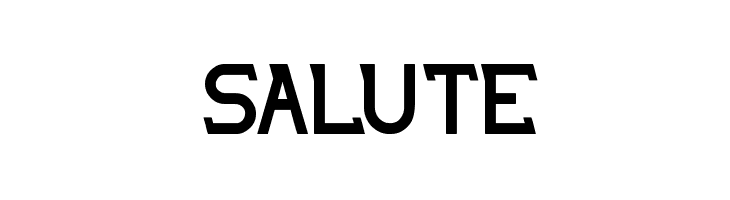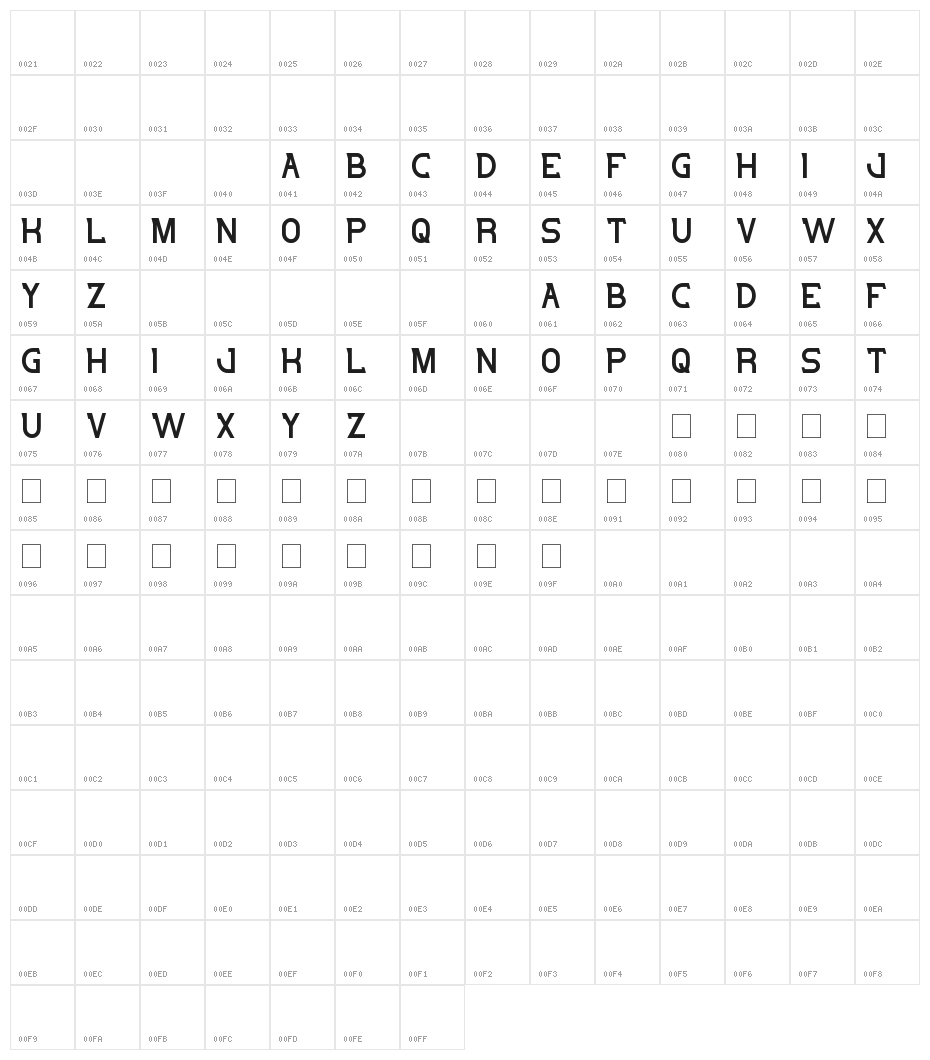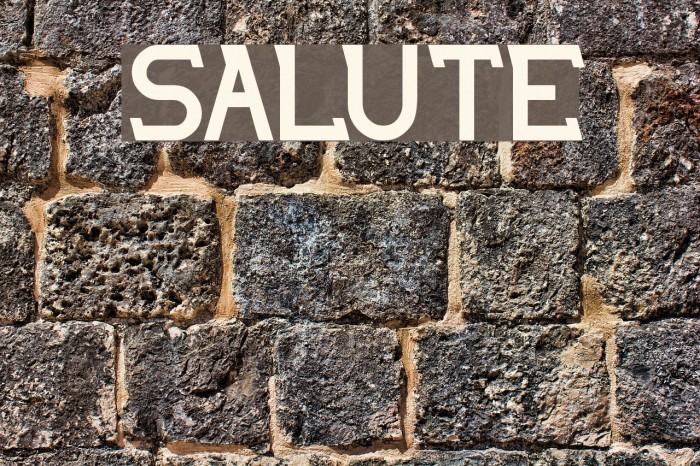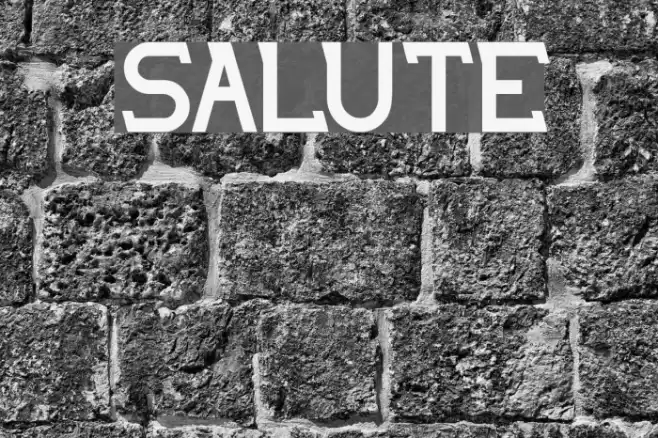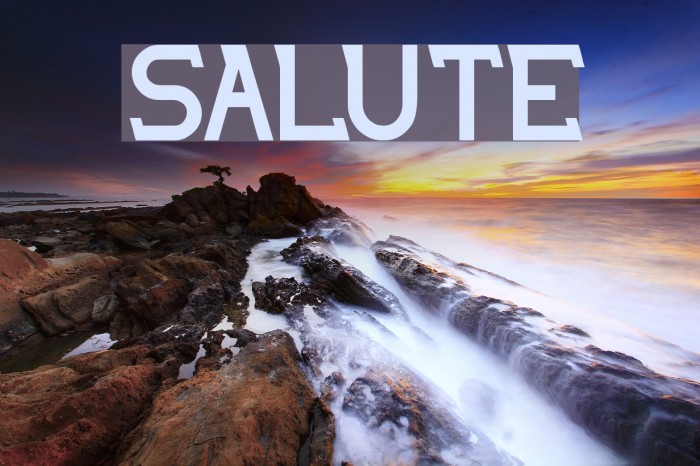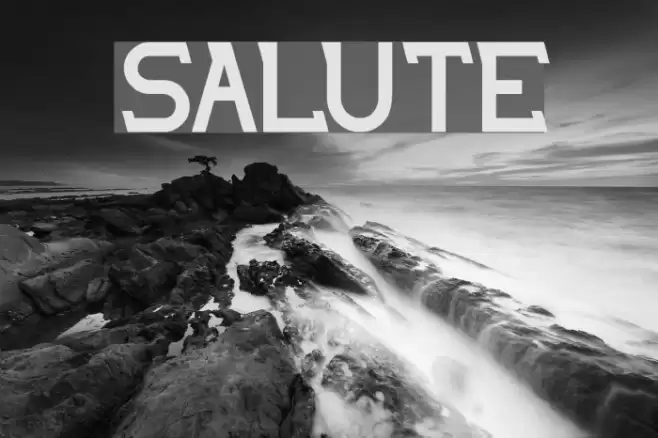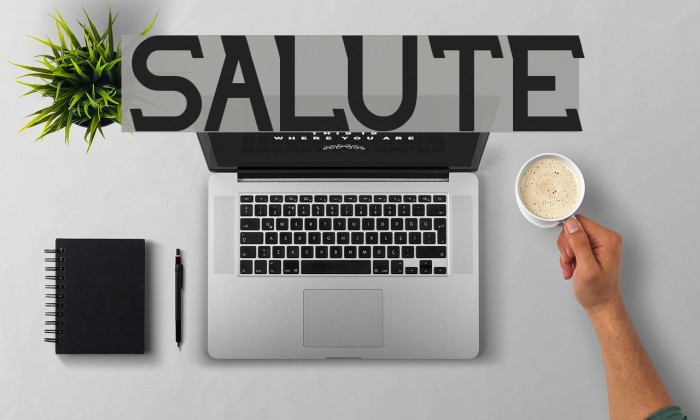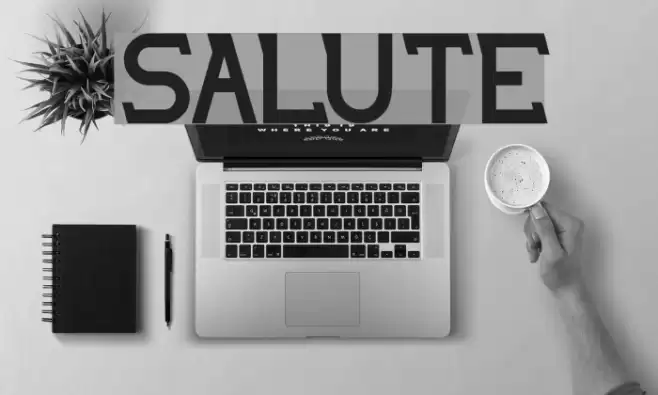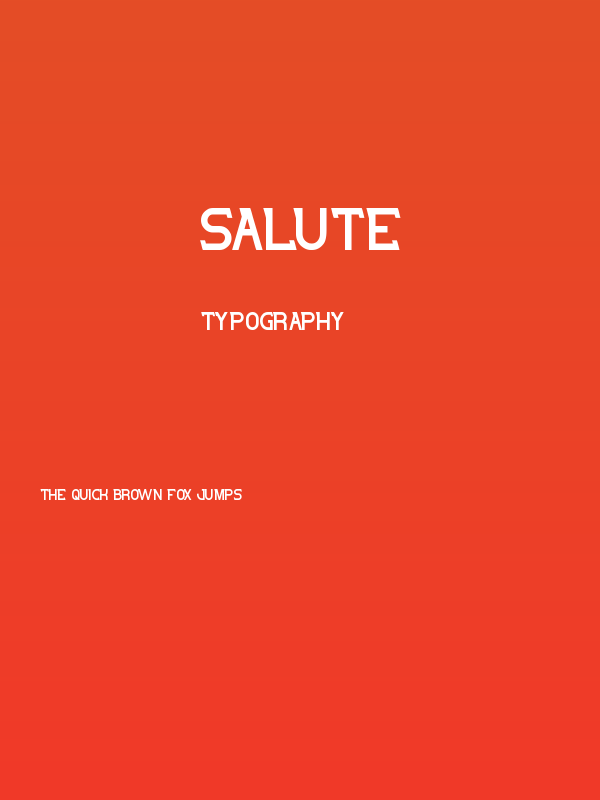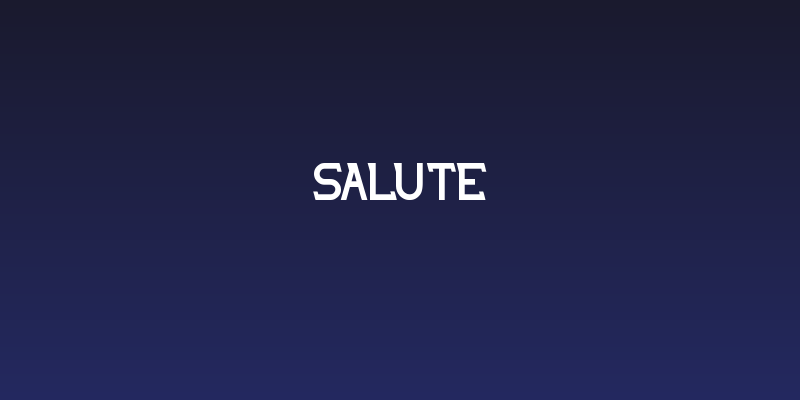
salute Font
salute Description
This font features a bold and modern design with a geometric structure. The characters are constructed with clean, straight lines and sharp angles, giving it a futuristic and technical appearance. The uppercase letters are uniform in height, while the lowercase letters maintain a consistent style, ensuring readability. The numbers are designed to match the overall aesthetic, with a similar emphasis on clarity and precision. Special characters are included, maintaining the same design principles, making this font versatile for various applications.
Proposed ProjectsIdeal for technology branding, modern posters, and digital interfaces.